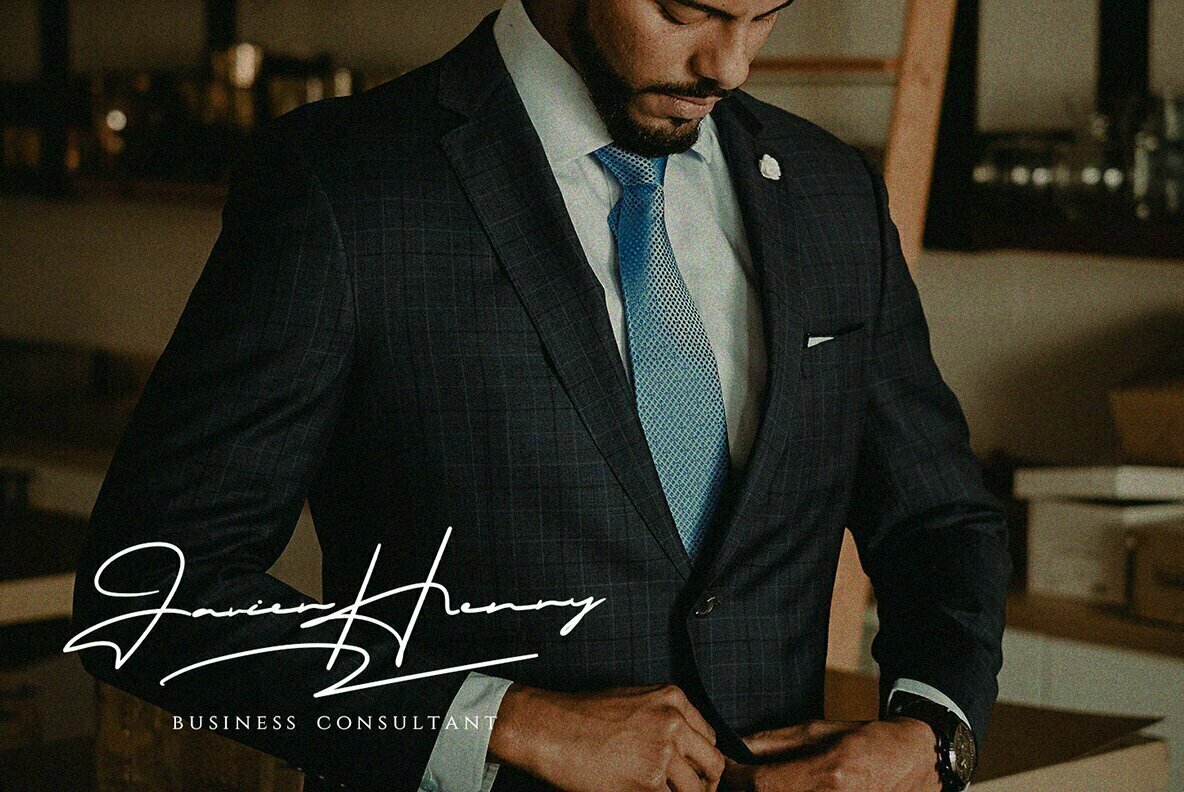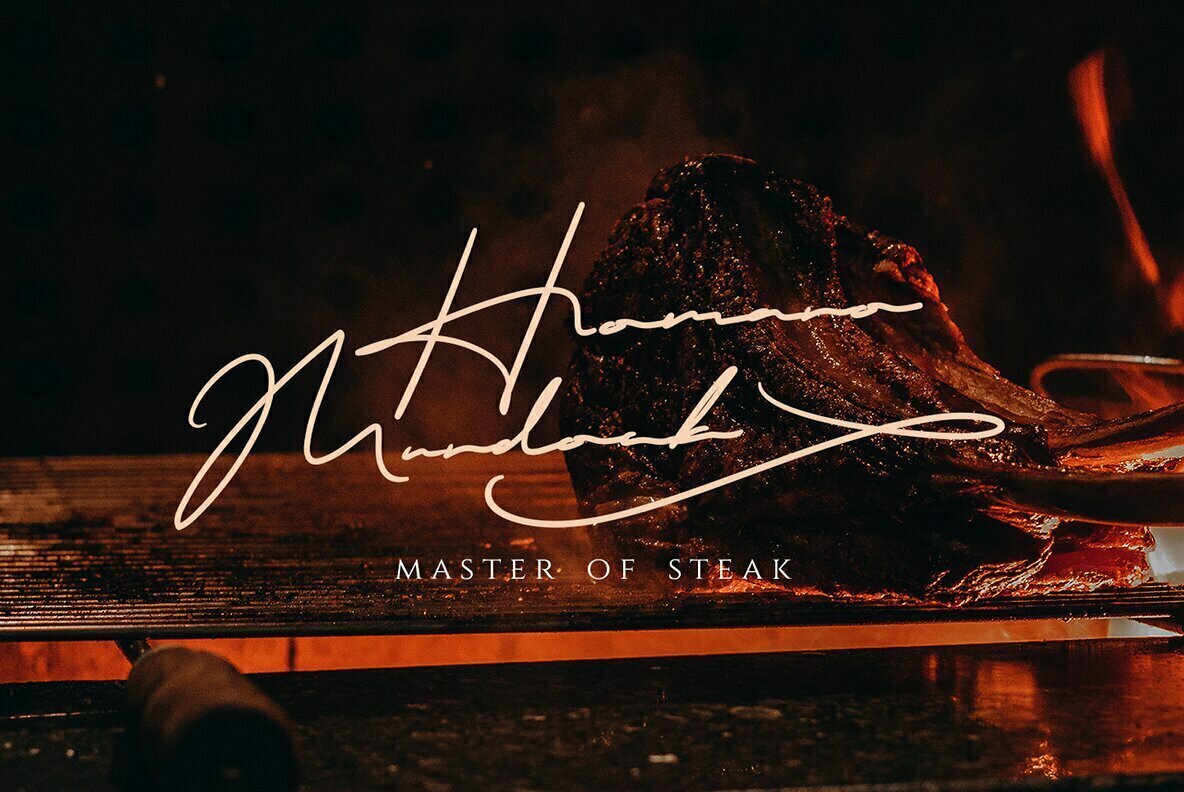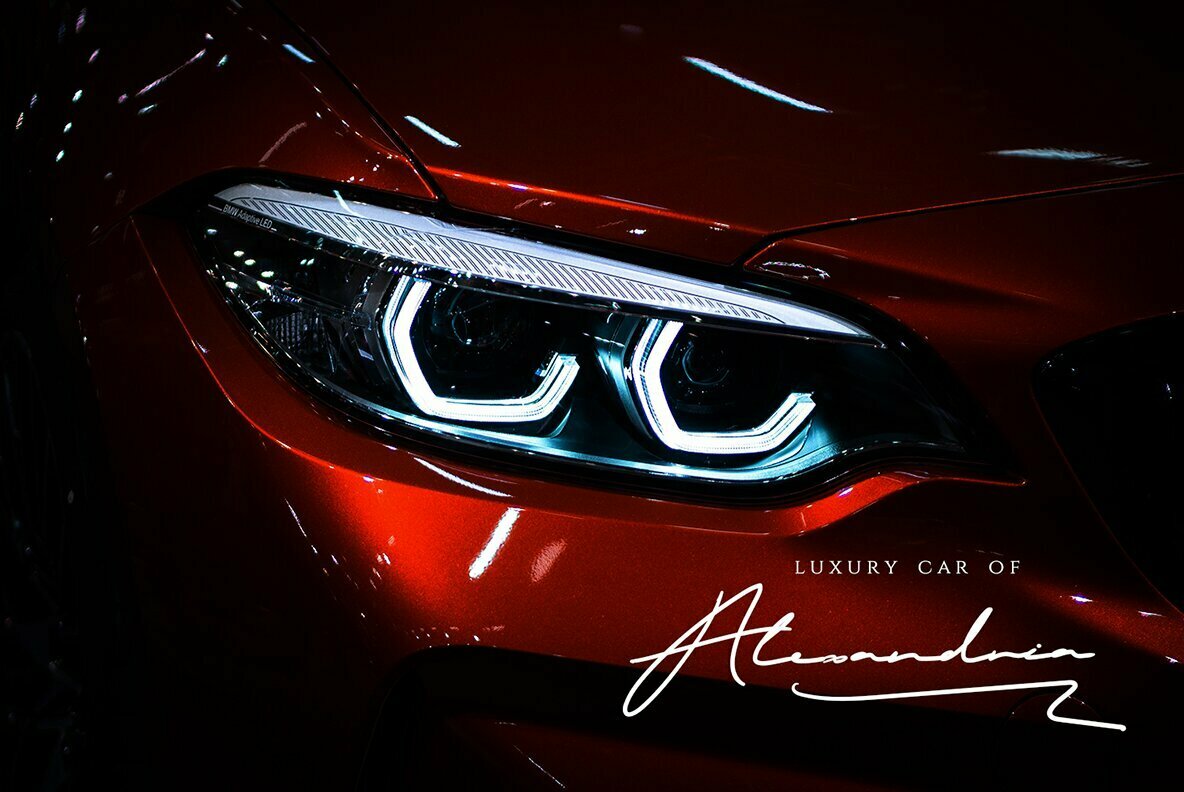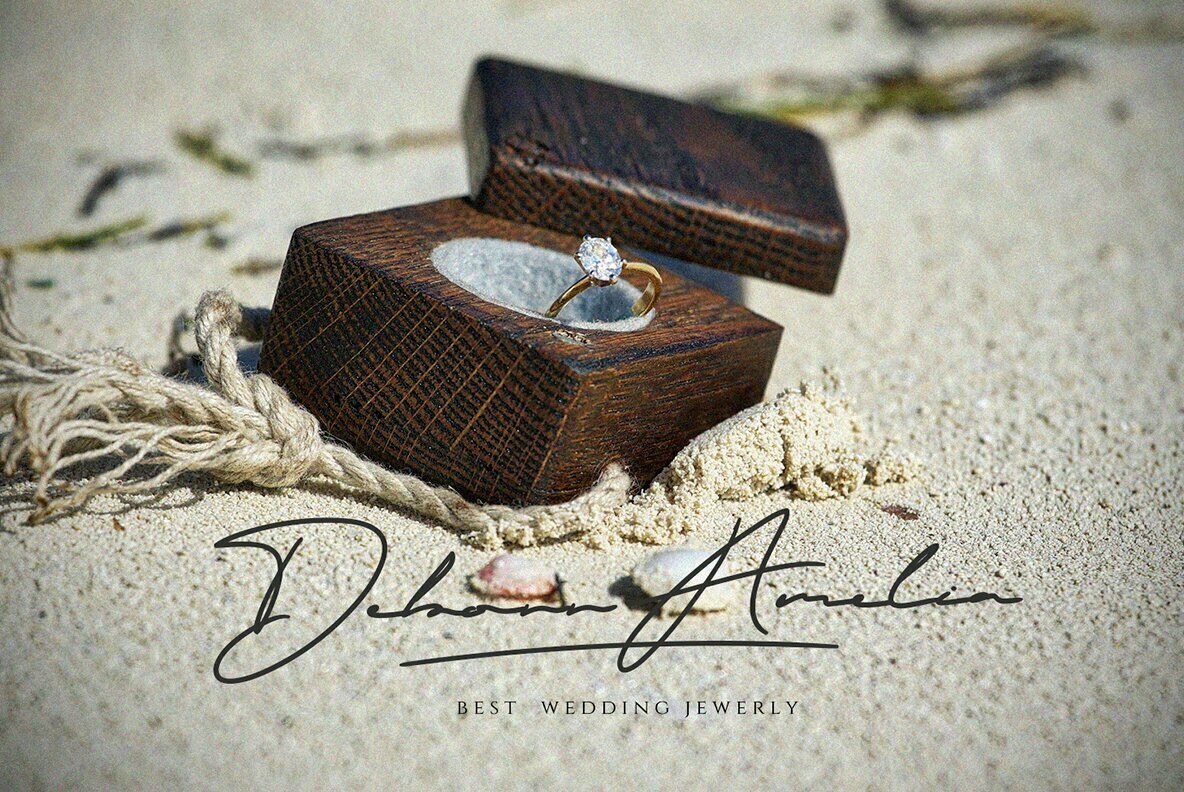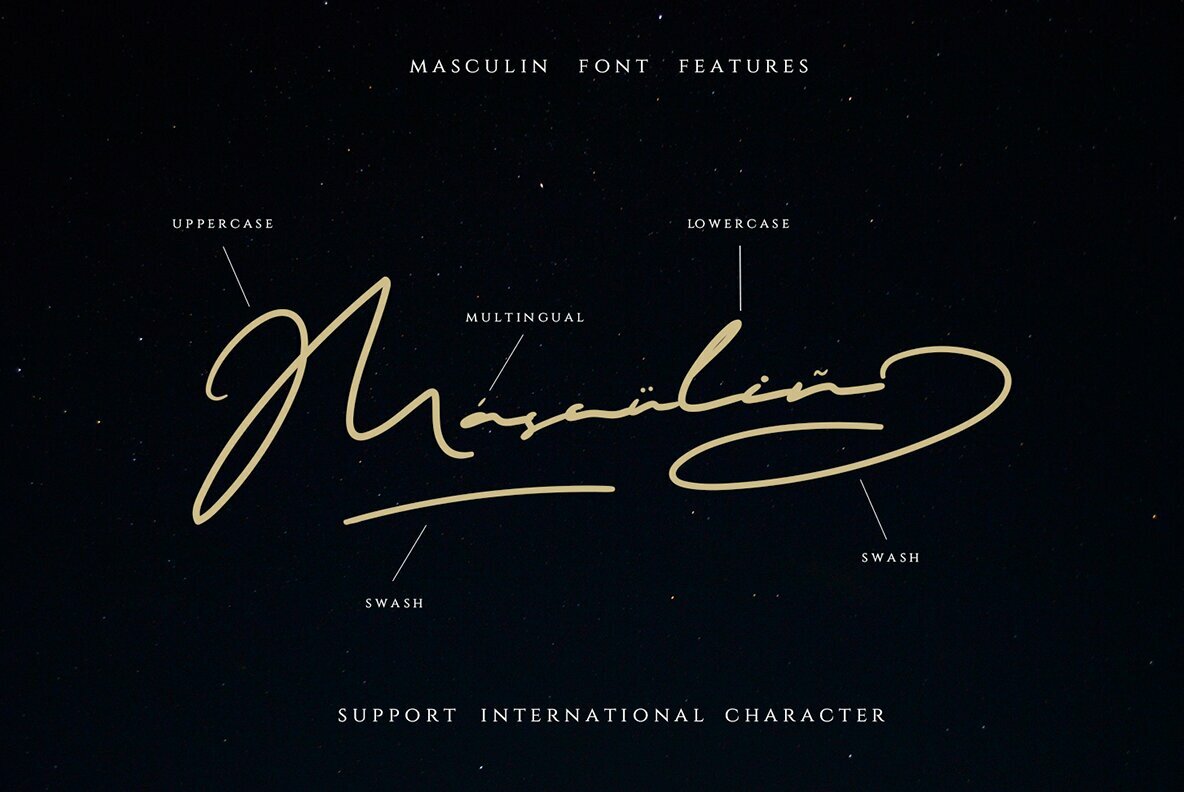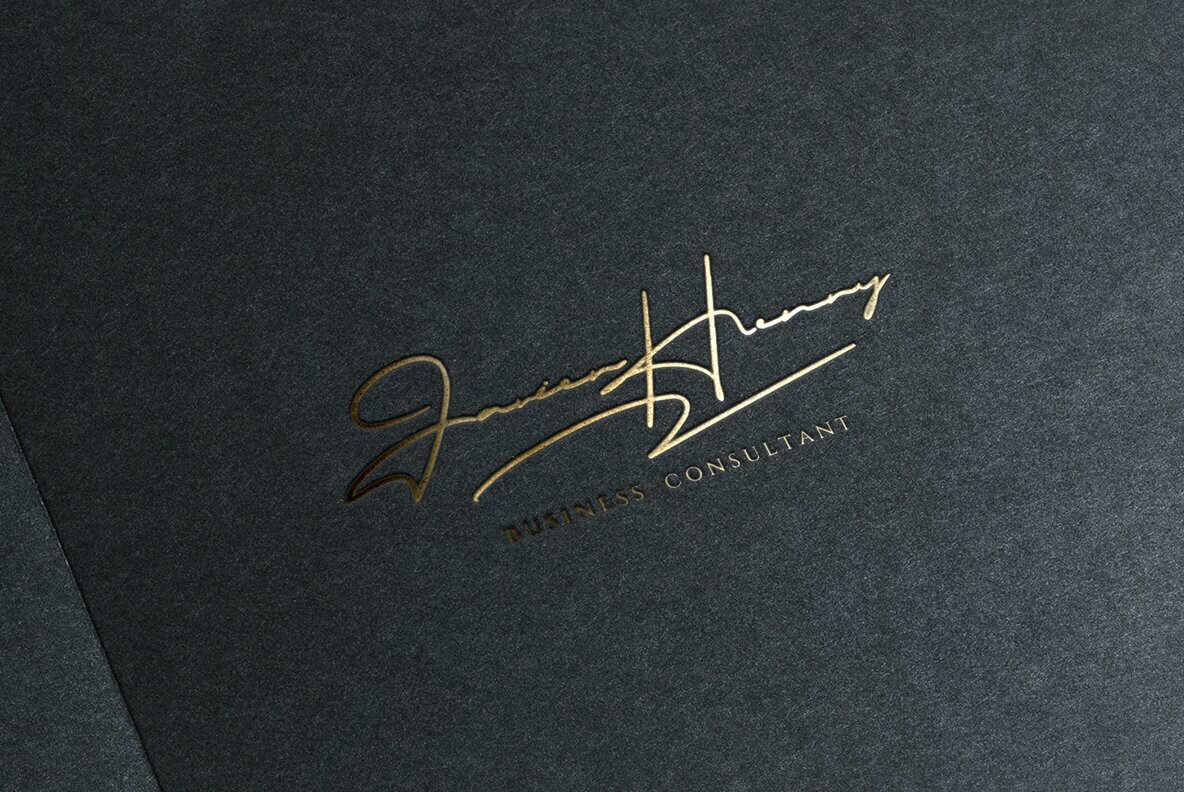
Masculin Font
Crafting a signature font takes time, creativity, and attention to detail. Masculin embodies these qualities, resulting in a unique script font designed for contemporary branding. With its clean lines and distinctive character, Masculin is an ideal choice for logos, business cards, magazine layouts, invitations, headers, and large-scale artwork. Features:Masculin: The Real Signature Font